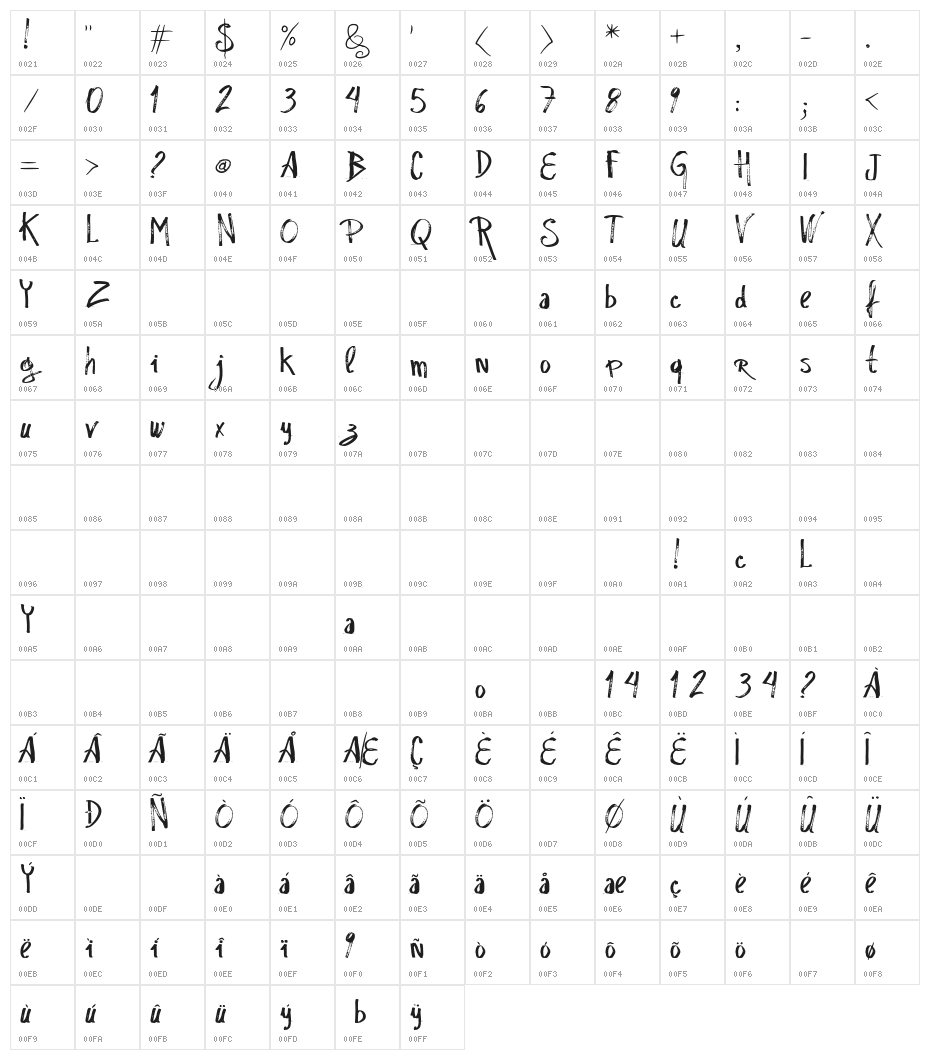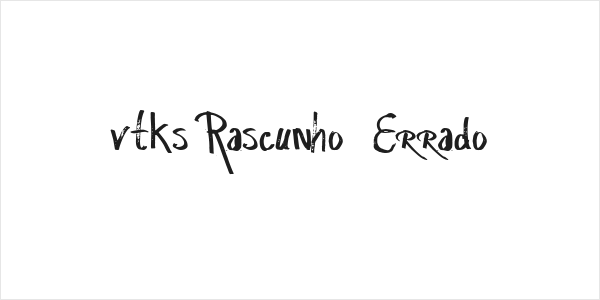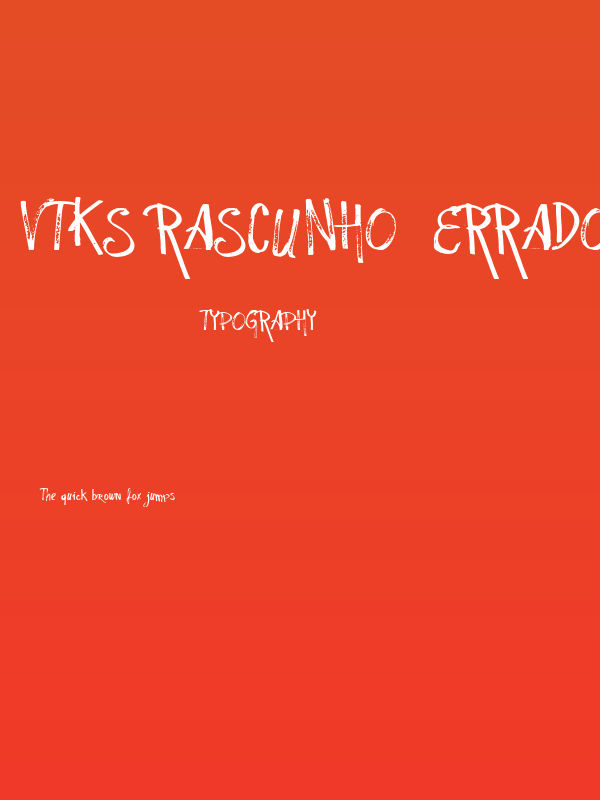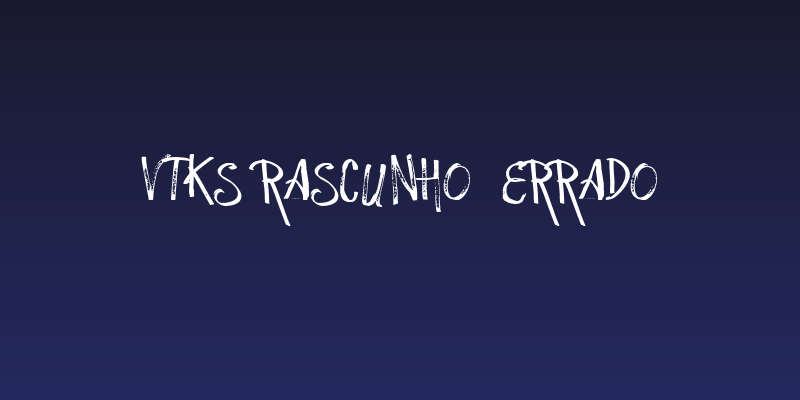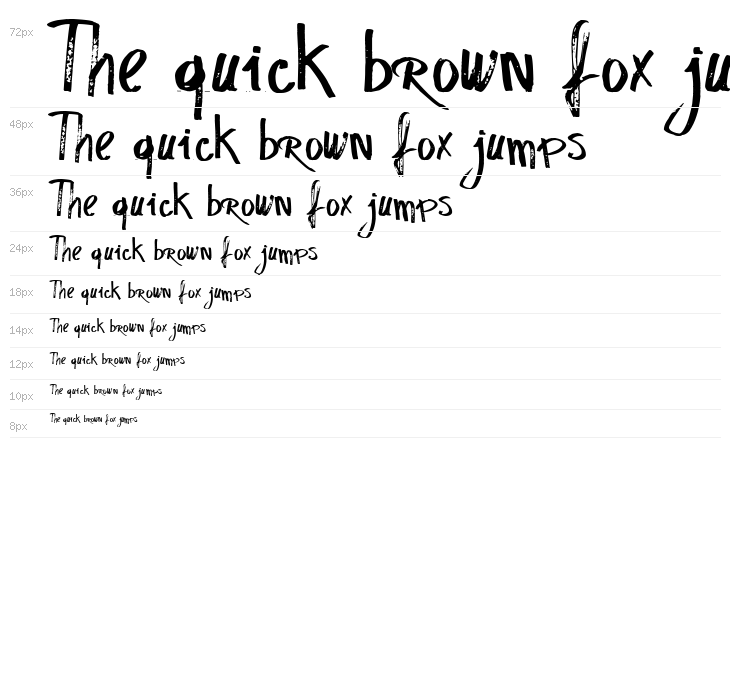
vtks Rascunho Errado Font
| 全体的なスタイル | Grunge, Artistic |
| 用途 | Headlines, Posters, Artistic projects |
| おすすめプロジェクト | Ideal for album covers, street art-inspired designs, posters, and edgy branding projects. |